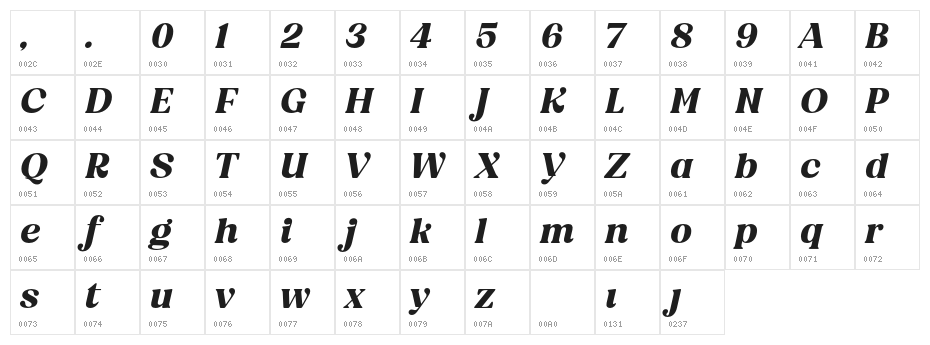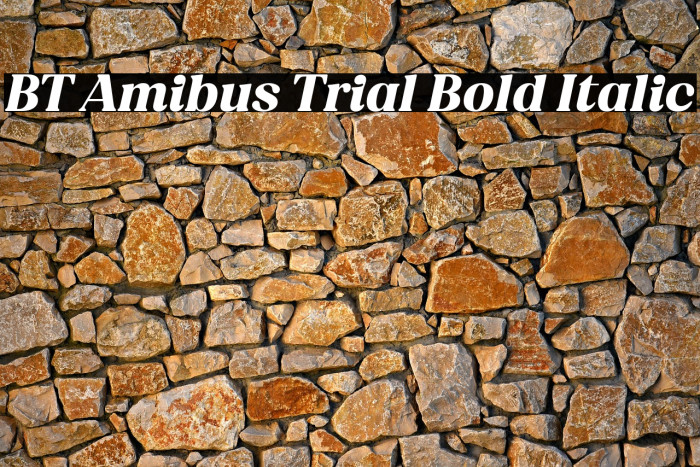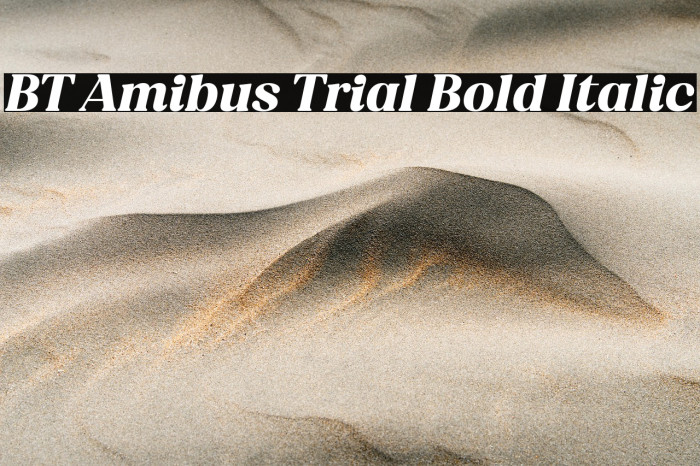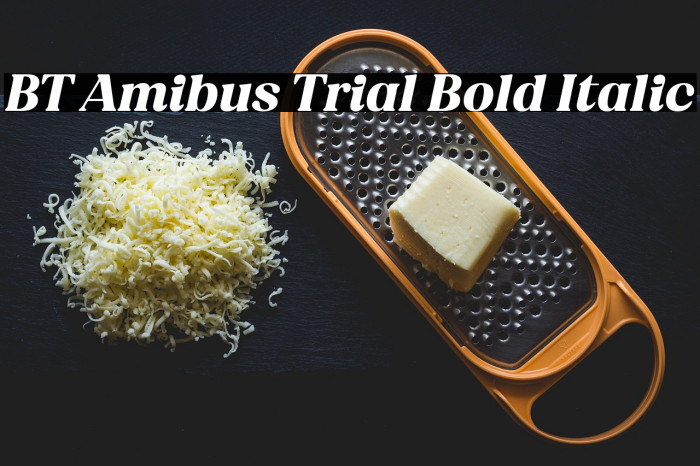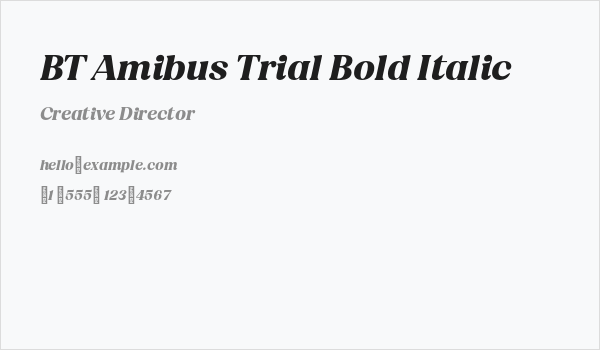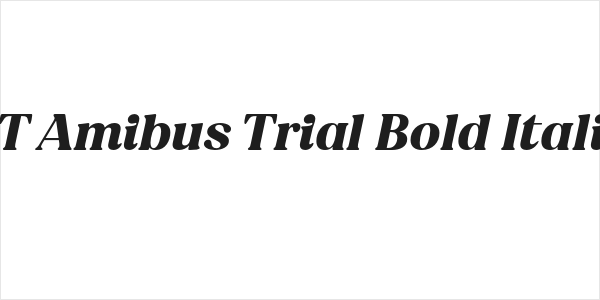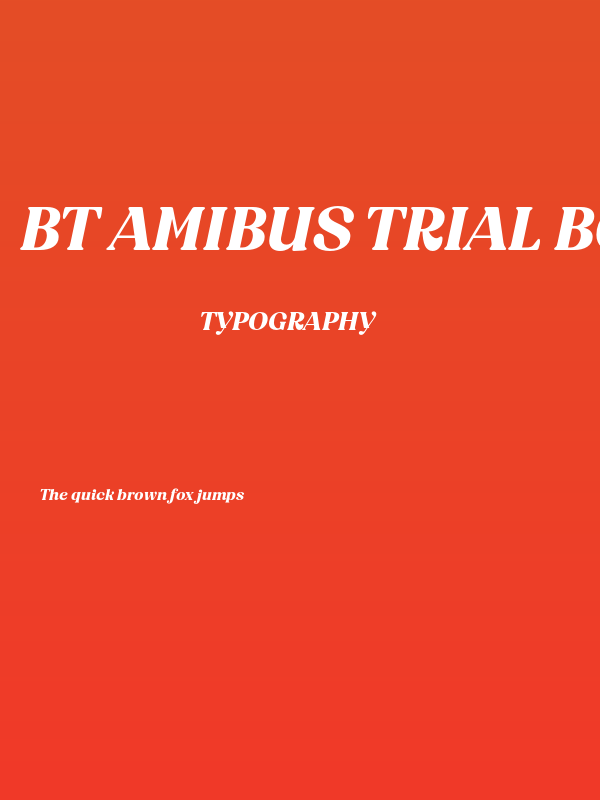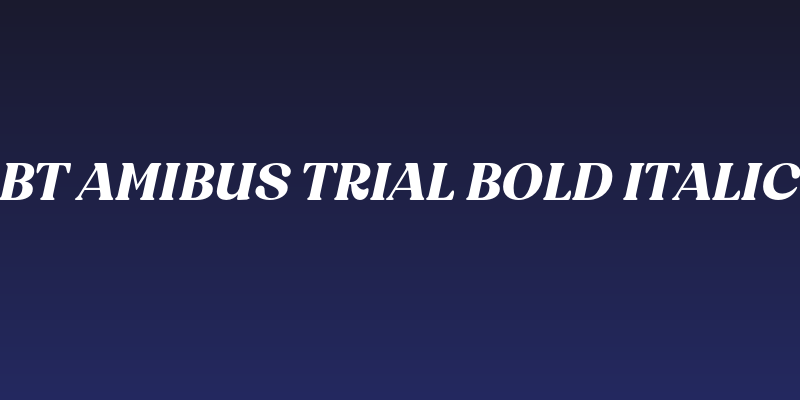
BT Amibus Trial Bold Italic Font
BT Amibus Trial Bold Italic Description
This font features a bold and italic style, characterized by its strong and dynamic appearance. The letters have a slight slant, adding a sense of movement and elegance. The strokes are thick and consistent, providing a robust and confident look. The serifs are pronounced, giving the font a classic and formal feel. The overall design is clean and legible, making it suitable for various applications where emphasis and style are desired.
| Proposed Projects | Ideal for headlines, branding, posters, and any design requiring a bold and elegant statement. |